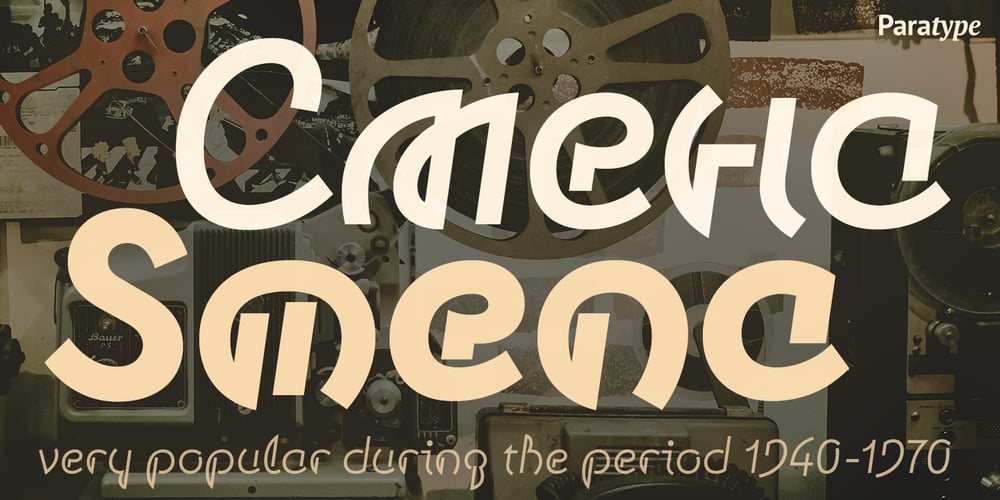
Smena
Smena font
Smena Font Family was designed by Vladimir Pavlikov and published by ParaType. Smena contains 3 styles and family package options. Smena was based on the lettering of the so called ‘calligraphic style’ that was very popular during the period 1940-1970. The style was used in logos, book and magazine headlines, posters, signage etc. For use in advertising and display typography. Licensed by ParaType in 2006.